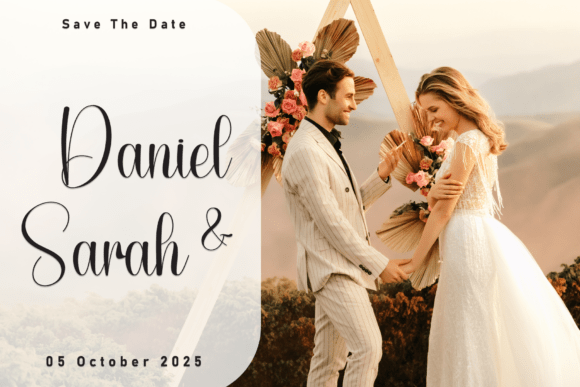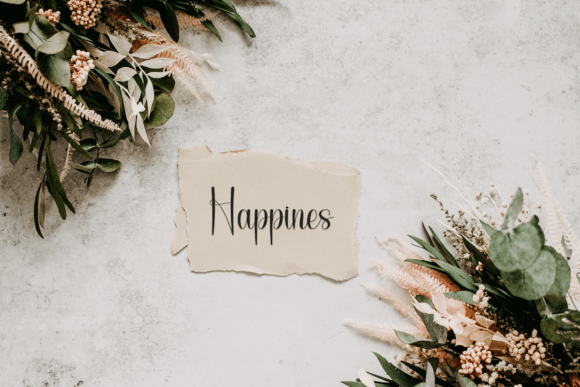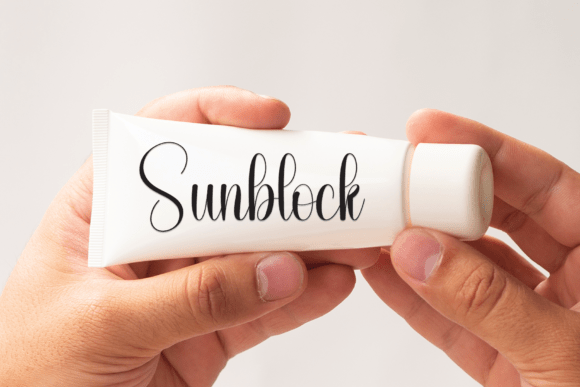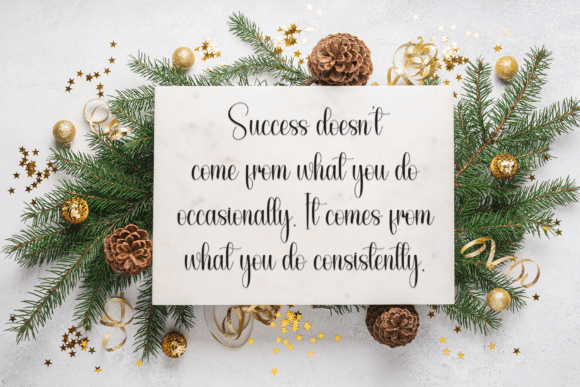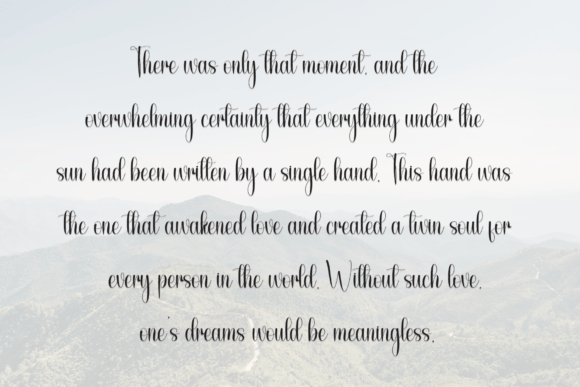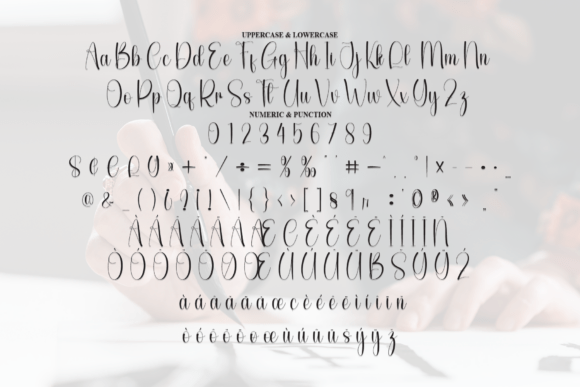
The Art of Handwritten Perfection: Unveiling Calligraphy Font
Do you remember the moment when you first decided to pursue your passion for creative writing? For me, it was the day I spent hours perfecting a heartfelt letter to a loved one. The ink flowed effortlessly onto the paper, and the words seemed to dance across the page. It was in that moment that I knew I wanted to capture that same magic in my designs.
Enter Calligraphy Font, a beautifully crafted handwritten script font that brings a touch of elegance and whimsy to any project. Designed to add a dash of sweetness and amiability, this font is perfect for designers who want to inject vitality into their creative ventures. Whether you’re designing wedding invites, cards, or any other project that requires a personal touch, Calligraphy Font is sure to delight.
Calligraphy Font Key Features
- Unique Characteristics: Distinctive calligraphic flourishes and swashes add a touch of elegance and sophistication to your text, making it perfect for formal invitations, wedding stationery, and luxury branding.
- Style Variations: Available in multiple styles, including formal, script, and casual, allowing you to choose the perfect look to suit your design needs.
Designer Review: Calligraphy Font
Overall, I think the Calligraphy Font has some great qualities that make it a solid choice for designers, but it’s not without its limitations.
- The font’s aesthetic is elegant and sophisticated, making it perfect for wedding invitations, formal events, and high-end branding.
- The lettering is highly customizable, allowing designers to adjust the style, size, and spacing to fit their specific needs.
- The font includes a wide range of ligatures and swashes, which can add a touch of personality and whimsy to designs.
- The font may not be the best choice for body text, as it can be difficult to read at smaller sizes.
- The font’s complexity can make it challenging to use for beginners or those without extensive design experience.
- The font may not be compatible with all operating systems or software, which can lead to compatibility issues.
The Calligraphy Font is a beautiful and versatile choice for designers who want to add a touch of elegance to their projects. While it may have some limitations, its strengths make it a great option for those who are looking for a high-end, custom look.
Tips for Getting the Most Out of Calligraphy Font
To get the most out of calligraphy font, use it sparingly and strategically. Pair it with simple backgrounds and bold colors to make it stand out. Experiment with different font sizes and styles to create a visually appealing effect. Finally, don’t be afraid to add a personal touch by hand-drawing or hand-painting elements to your design.
Calligraphy font is commonly used in wedding invitations, greeting cards, and other special occasion materials. It’s also used in branding and marketing materials, such as logos and business cards, to add a touch of elegance and sophistication.
Alternatives to Calligraphy Font for Designers
Lobster Font is a casual, cursive font suitable for headings and titles. It is ideal for creating a relaxed, friendly atmosphere in designs such as magazines, social media, and advertisements. Lobster Font is more playful and informal compared to Calligraphy Font, which is more elegant and sophisticated.